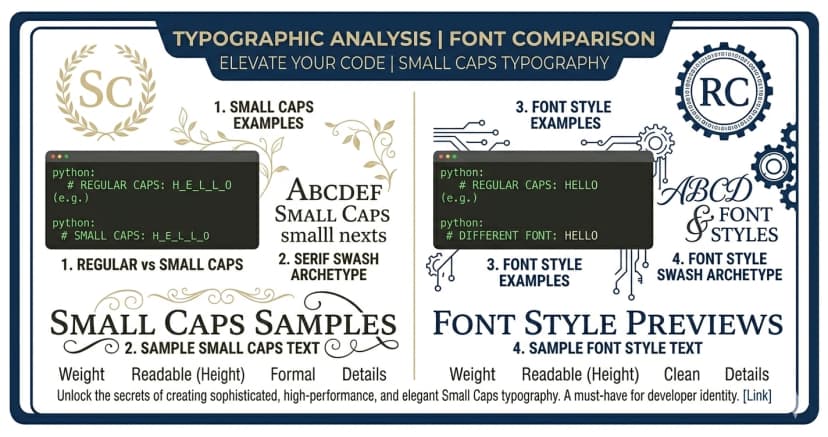
Small Caps Font Generator โ ๊ฑแดแดสส แดแดแด๊ฑ Unicode Text
Small caps are uppercase letterforms rendered at the size of lowercase letters โ creating a refined, typographically sophisticated look that's been a staple of professional publishing for centuries. Our generator converts your text to Unicode small caps characters that work anywhere, bringing editorial elegance to your social media profiles.
แดกสษชแดแด แดกษชแดส แดสแด แดแดสษช๊ฑส แด๊ฐ แด แดสแดแด๊ฑแดแดแดแดส.
What Are Small Caps?
Small caps are a typographic feature where text is set in uppercase letterforms but scaled to match the x-height (the height of lowercase letters) of the typeface. The result reads with the clarity of uppercase while maintaining the visual rhythm of lowercase text.
Traditional small caps are a font feature that requires a specially designed typeface. Unicode small caps use characters from various blocks โ primarily the Phonetic Extensions (U+1D00โU+1D7F) and Latin Extended blocks โ to approximate the small caps appearance in plain text.
Small Caps Alphabet
แด ส แด แด แด ๊ฐ ษข ส ษช แด แด ส แด ษด แด แด วซ ส s แด แด แด แดก x ส แดข
Small Caps in Typography History
Small caps have a long tradition in professional typography:
- Classical typography โ used for running heads, proper nouns, and abbreviations in books and newspapers
- Legal and academic publishing โ small caps appear in citations, section titles, and author names
- Magazine design โ editorial magazines use small caps for pull quotes, bylines, and section labels
- Luxury branding โ premium brands use small caps for a timeless, authoritative typographic voice
The style signals refinement precisely because it has historically required careful typographic craft โ and now you can bring that same elegance to your social media profiles.
Where to Use Small Caps Text
LinkedIn profiles โ small caps add a professional, editorial polish to your headline and bio that stands out in a sea of regular text.
Instagram bios โ the understated elegance of small caps creates a high-end, curated feel without the visual noise of more decorative fonts.
Twitter and X โ small caps are subtle enough for professional use but distinctive enough to catch the eye.
Discord usernames โ a small caps username reads as calm, confident, and refined.
Newsletter and blog author names โ small caps are the typographic convention for author bylines in traditional publishing โ bring that tradition online.
Small Caps vs Uppercase
| Style | Example | Feel |
|---|---|---|
| Lowercase | small caps | Natural, conversational |
| Uppercase | SMALL CAPS | Loud, emphatic |
| Small Caps | ๊ฑแดแดสส แดแดแด๊ฑ | Refined, authoritative |
Small caps occupy a unique space โ they have the structure of uppercase without the shouting quality, and the proportional elegance without the casualness of lowercase.
Small Caps Copy-Paste Examples
Ready-to-use small caps text:
LinkedIn headline: ๊ฑแดษดษชแดส แด แด๊ฑษชษขษดแดส | แดสแดแด แดแดแด สแดแดแด
Elegant bio: แดกสษชแดแดส ยท แดสแดแด แดสสแดส ยท แดแด๊ฐ๊ฐแดแด
Display names: แดสแดxแดษดแด แดส ยท ๊ฑแดแดสษชแด ยท ษดแดแด แด
Academic/professional: แดส.แด แดแดษดแด ษชแด แดแดแด | สแด๊ฑแดแดสแดสแดส
Small Caps Font โ FAQ
Are Unicode small caps the same as CSS small-caps?
No. CSS font-variant: small-caps applies a typographic feature using the installed font โ it only renders in browsers. Unicode small caps use actual small-capital characters from Unicode phonetic and Latin extended blocks. They display identically everywhere: bios, usernames, SMS, Discord DMs.
Does small caps work on LinkedIn?
Yes. LinkedIn bios and headlines support Unicode, including small caps phonetic characters. This is how some LinkedIn profiles appear to use refined typographic styling โ they're pasting Unicode small caps, not using any hidden formatting.
Why are some small caps letters the same as lowercase?
Unicode small caps aren't a complete set for every letter โ some phonetic block characters look identical to their standard lowercase counterparts. This is a Unicode encoding limitation, not a generator issue. The most distinctive characters are the ones that clearly read as scaled capitals.
Do small caps affect accessibility?
Screen readers typically announce Unicode small caps as their letter equivalent โ the visual refinement is invisible to text-to-speech. For decorative or supplementary text this is fine; for critical information, plain text is more reliable.
Is small caps appropriate for a professional profile?
Yes โ small caps is the most conservative of the Unicode font styles. It reads as typographically refined rather than decorative, which makes it appropriate for LinkedIn, academic Twitter, and professional personal sites. It's the style closest to traditional editorial typography.